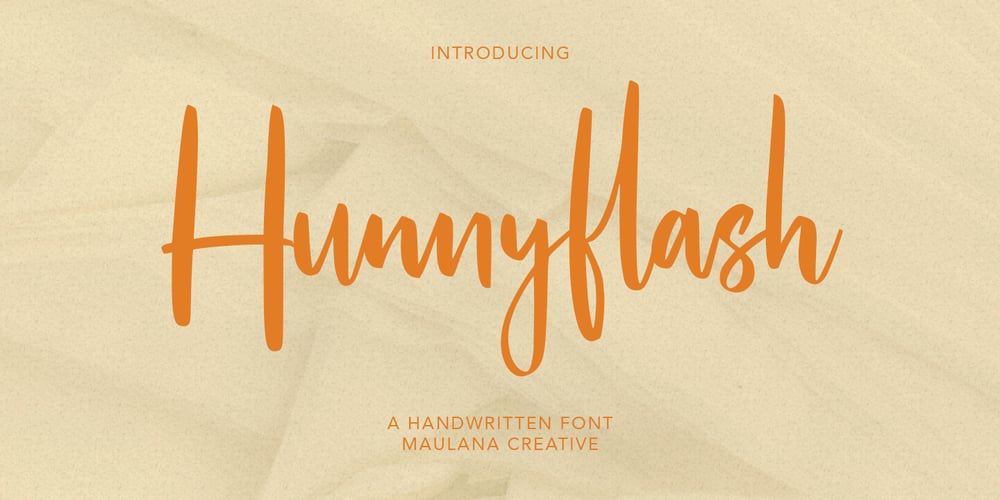
Hunnyflash
Hunnyflash font
Hunnyflash Font Family was designed by Gilang Maulana and published by Maulana Creative. Hunnyflash contains 2 styles and family package options. Hunnyflash is a handwritten script font With clean stroke, upright and fun character. It has Opentype features of ligatures character and alternate lowercase, To give you an extra creative work. Hunnyflash handwritten script font support multilingual more than 100+ language. This font is good for logo design, Social media, Movie Titles, Books Titles, a short text even a long text letter and good for your secondary text font with sans or serif. Make a stunning work with Hunnyflash handwritten script font. Cheers, MaulanaCreative